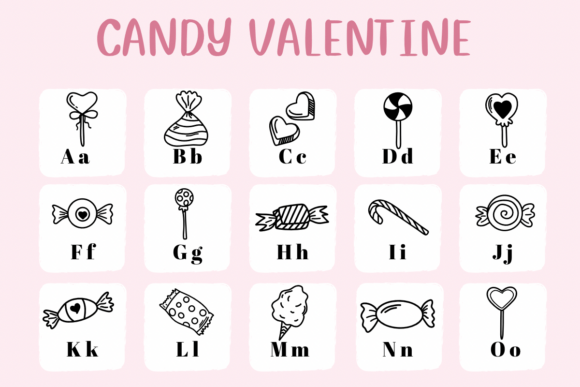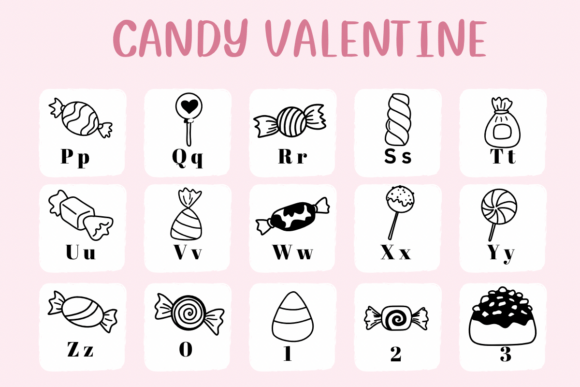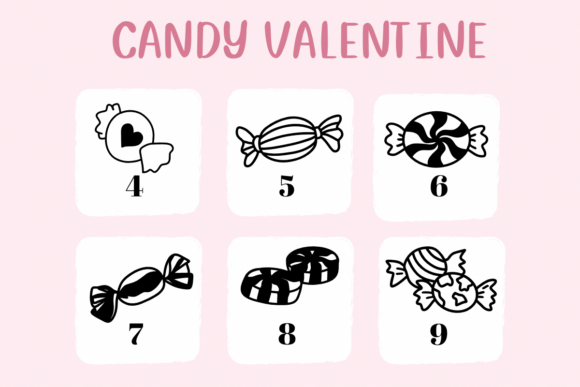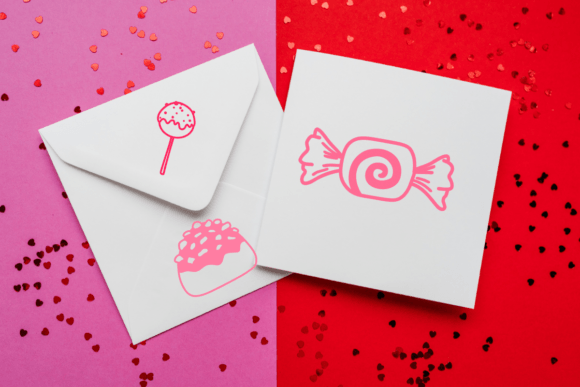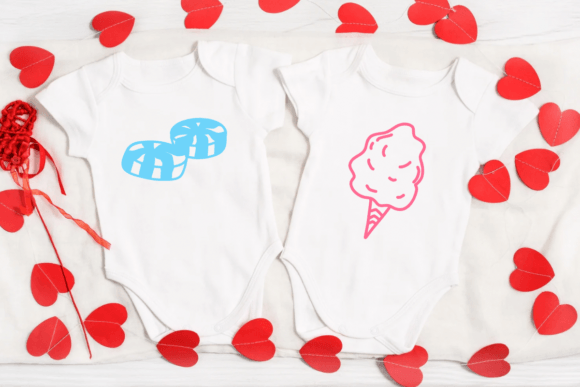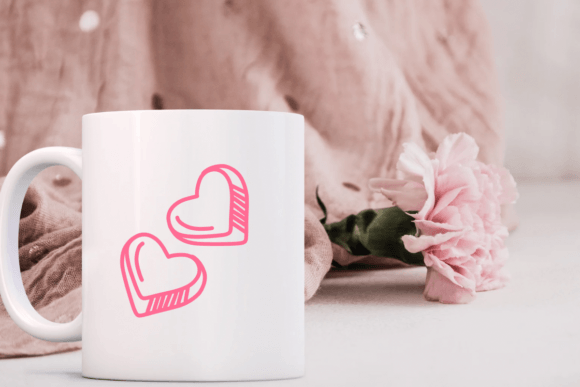
Candy Valentine Font: The Sweetest Way to Add Playfulness to Your Designs
Are you looking for a fun and creative way to add a playful touch to your love-themed designs? Look no further than the Candy Valentine Font! This adorable dingbat font features a variety of Valentine-themed sweets, including hearts, candies, and treats that are sure to make your designs stand out.
What is the Candy Valentine Font?
The Candy Valentine Font is a unique and whimsical dingbat font that is perfect for designers and crafters who want to add a touch of sweetness to their projects. The font features a range of Valentine-themed characters, including hearts, candies, and other treats that are sure to delight.
Key Features of the Candy Valentine Font
- Valentine-themed characters: The font features a range of Valentine-themed characters, including hearts, candies, and other treats.
- Fun and playful design: The font has a fun and playful design that is perfect for adding a touch of whimsy to your designs.
- Dingbat font: The font is a dingbat font, which means that it features graphical characters instead of traditional letters and numbers.
- Perfect for love-themed designs: The font is perfect for designers and crafters who want to create love-themed designs, such as Valentine’s Day cards, invitations, and decorations.
How to Use the Candy Valentine Font
The Candy Valentine Font is easy to use and can be incorporated into a variety of design projects. Here are a few ideas for using the font:
- Valentine’s Day cards and invitations: Use the font to create adorable Valentine’s Day cards and invitations that are sure to delight your loved ones.
- Social media graphics: Use the font to create fun and playful social media graphics that are perfect for Valentine’s Day.
- Craft projects: Use the font to add a touch of sweetness to your craft projects, such as scrapbooking, card making, and DIY decorations.
- Digital papers and wall art: Use the font to create digital papers and wall art that feature Valentine-themed designs.
Benefits of Using the Candy Valentine Font
There are many benefits to using the Candy Valentine Font in your designs. Here are a few:
- Adds a playful touch: The font adds a playful and whimsical touch to your designs that is sure to delight.
- Unique and creative: The font is a unique and creative way to add Valentine-themed designs to your projects.
- Easy to use: The font is easy to use and can be incorporated into a variety of design projects.
- Perfect for Valentine’s Day: The font is perfect for Valentine’s Day designs and is sure to add a touch of sweetness to your projects.
Tips and Tricks for Using the Candy Valentine Font
Here are a few tips and tricks for using the Candy Valentine Font:
- Experiment with different colors: Experiment with different colors and combinations to add a pop of color to your designs.
- Use with other fonts: Use the font with other fonts to create a unique and creative design.
- Add graphics and images: Add graphics and images to your designs to make them more visually appealing.
- Play with layout and design: Play with the layout and design of your project to create a unique and creative look.
The Candy Valentine Font is a fun and creative way to add a playful touch to your love-themed designs. With its unique and whimsical design, this font is perfect for designers and crafters who want to create adorable Valentine’s Day cards, invitations, and decorations. So why not give it a try and add a touch of sweetness to your designs?